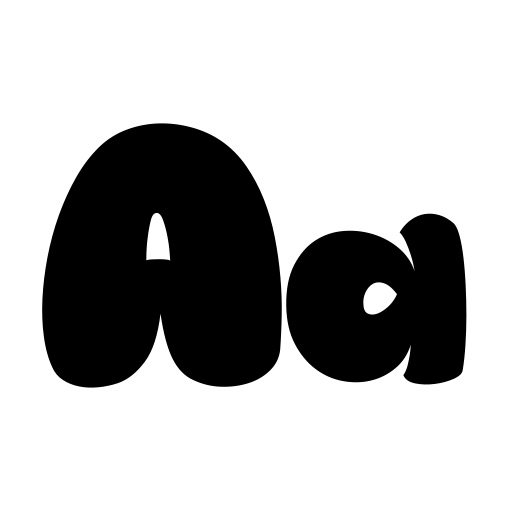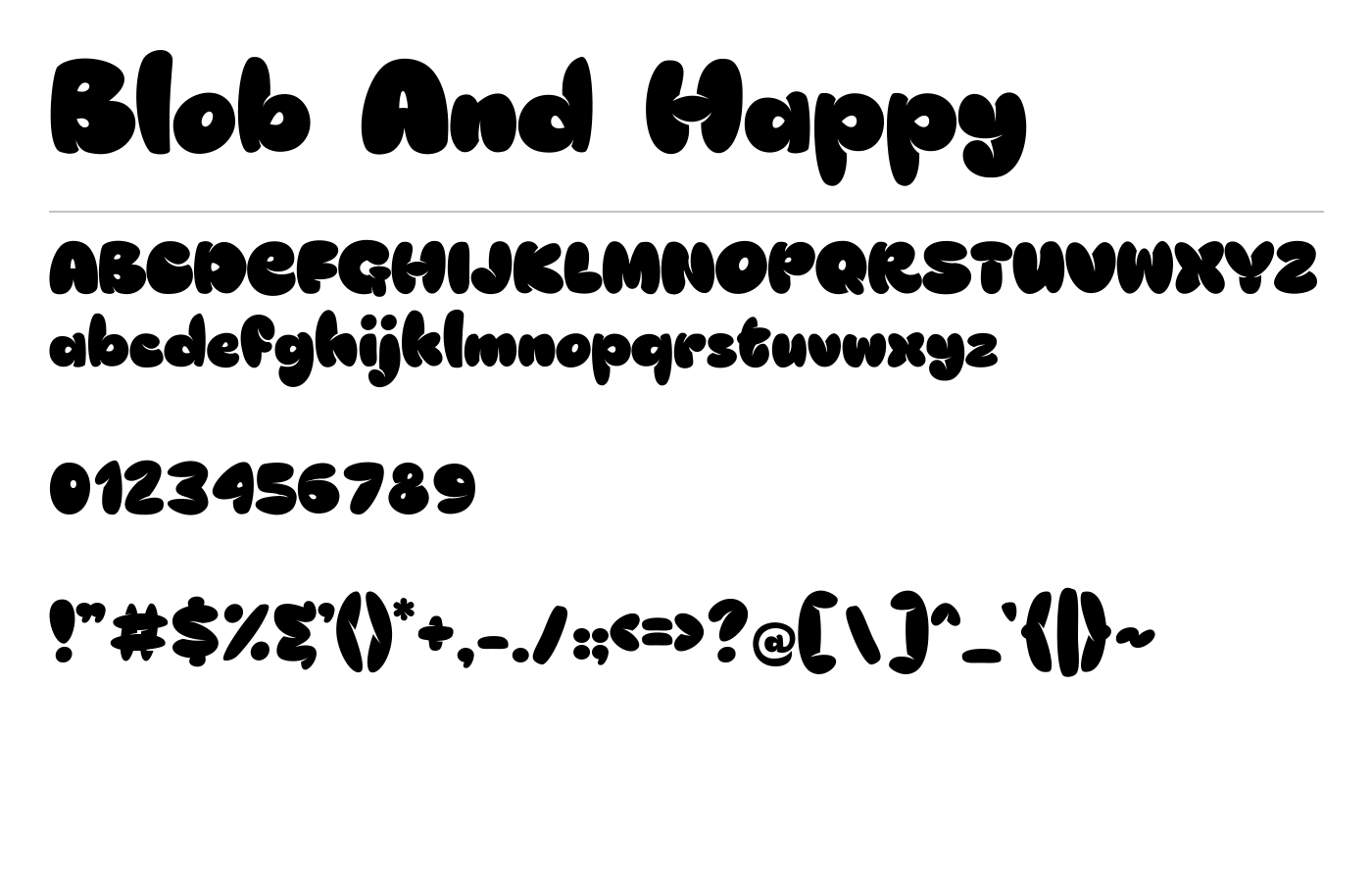
Blob And Happy is a playful, bubbly sans serif font characterized by its bold, rounded shapes and high contrast between thick and soft strokes. Its quirky letterforms, including single-story a and g, create a fun, friendly vibe perfect for casual branding, children's materials, and creative projects. This font shines in headlines and logos where a lively, approachable mood is desired.
Blob And Happy Font
About Blob And Happy Font
| Designer | Sahirul Iman, Semarang, alexatype |